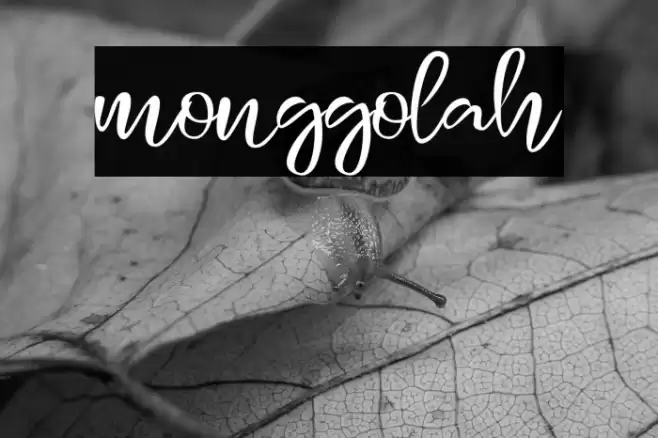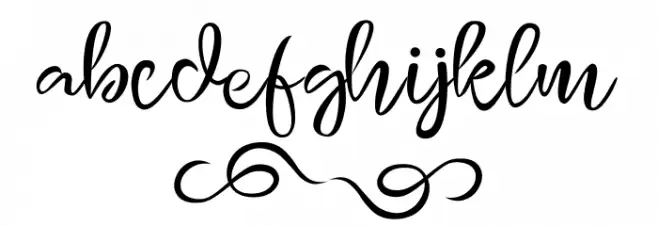
monggolah Font
monggolah Description
This font features an elegant and flowing script style, characterized by its smooth, connected strokes and graceful curves. The letters are designed with a consistent slant, giving it a dynamic and fluid appearance. The uppercase letters are slightly larger and more ornate, while the lowercase letters maintain a uniform height, enhancing readability. The font includes decorative swashes and ligatures, adding a touch of sophistication and charm. It is well-suited for projects that require a personal and artistic touch, such as invitations, greeting cards, and branding materials.
An elegant and flowing script font with graceful curves and decorative swashes from Regular fonts.
- Font: monggolah
- Proposed Projects: Ideal for wedding invitations, greeting cards, branding, and artistic projects.
- Overall Style: Elegant and Artistic
- Use Case: Headlines, Invitations, Artistic projects